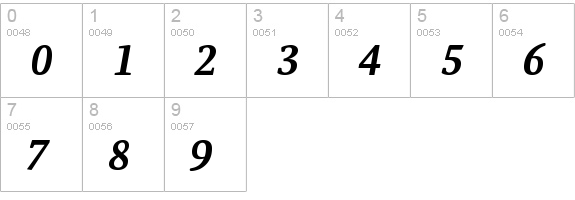
Introducing ParableLF-BoldSCItalic, a captivating and unique font that effortlessly combines elegance with a touch of boldness. This font is designed for those who seek to make a statement with their typography, as it exudes confidence and sophistication. With its striking curves and stylish italicized form, ParableLF-BoldSCItalic stands out among the crowd, adding a sense of flair and individuality to any project. Whether it's for a logo, branding materials, or even a striking headline, this font is sure to leave a lasting impression. But what makes ParableLF-BoldSCItalic truly special is that it is not only aesthetically pleasing but also free for everyone to enjoy. Yes, you heard it right - this exceptional font is freely available to download at FontsMarket.com. No need to worry about breaking the bank or compromising on quality; ParableLF-BoldSCItalic offers the best of both worlds. So why wait? Go ahead and enhance your designs with the captivating allure of ParableLF-BoldSCItalic. Whether you're a seasoned designer or just starting out, this font is a valuable addition to your creative toolkit. Stand out, make a statement, and leave a lasting impression with the freely available ParableLF-BoldSCItalic font from FontsMarket.com.